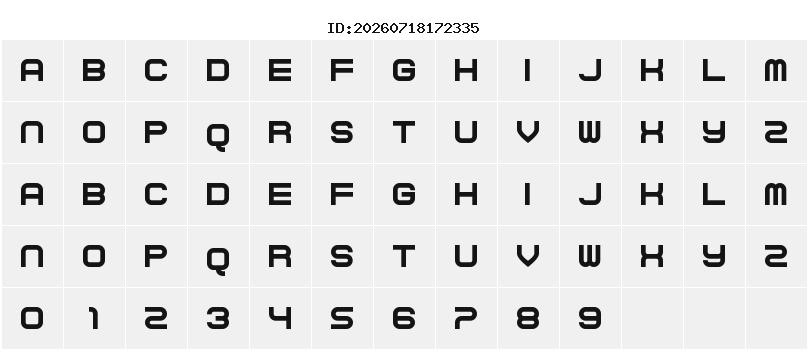
Curvert Preview
• Font Name: Curvert
• Full Font Name: Curvert
• Version: Version 1.00 January 19, 2014, initial release
About Curvert.otf
Curvert.otf is a modern, elegant sans-serif font designed for ultimate readability and visual harmony. Perfect for branding, headlines, web design, and print materials.